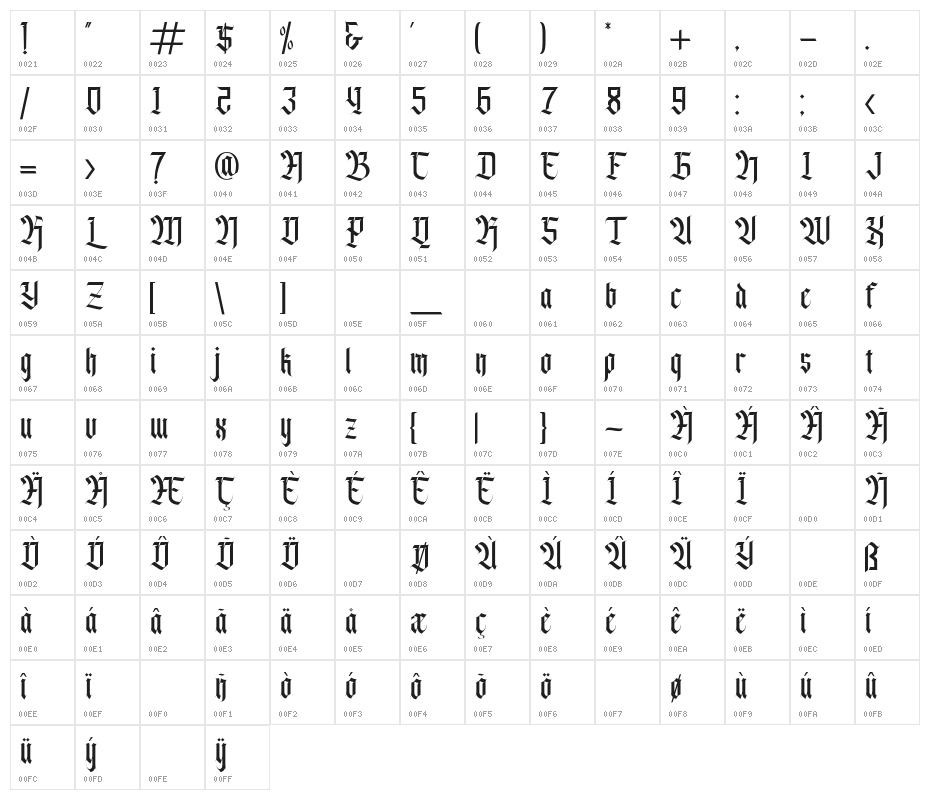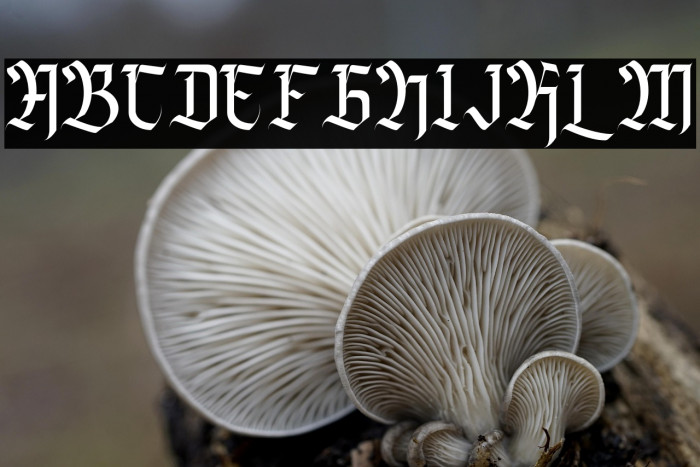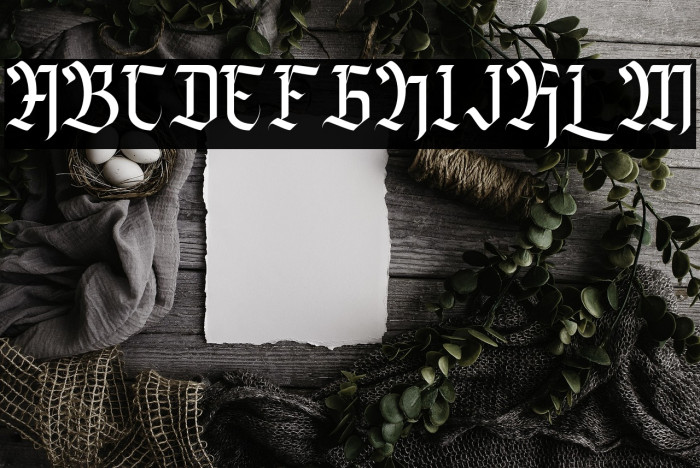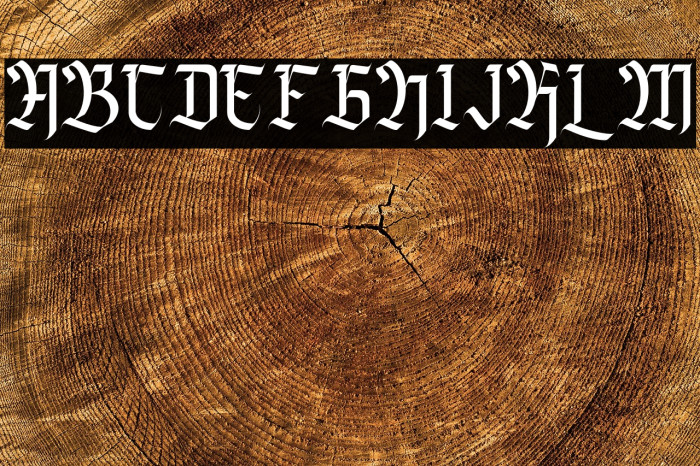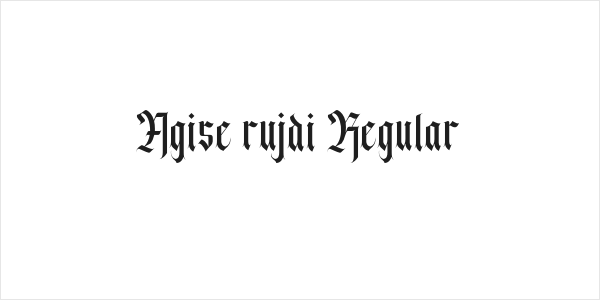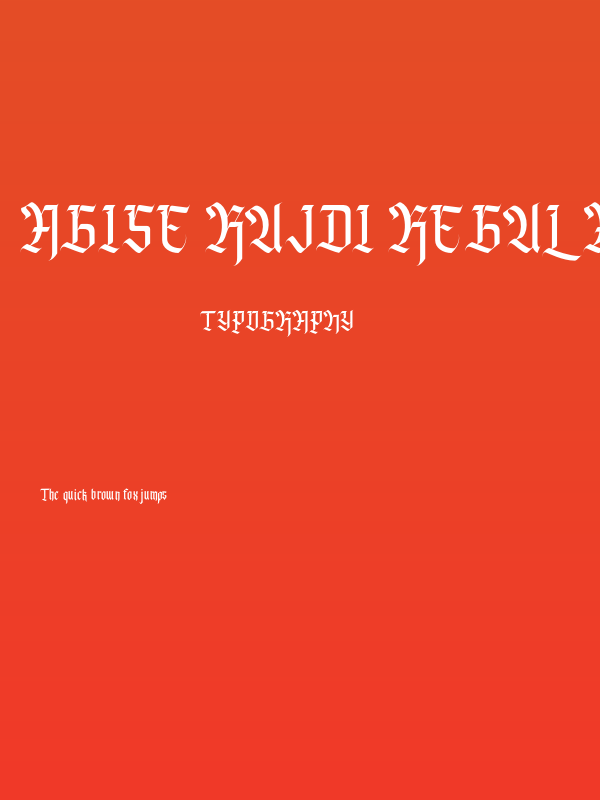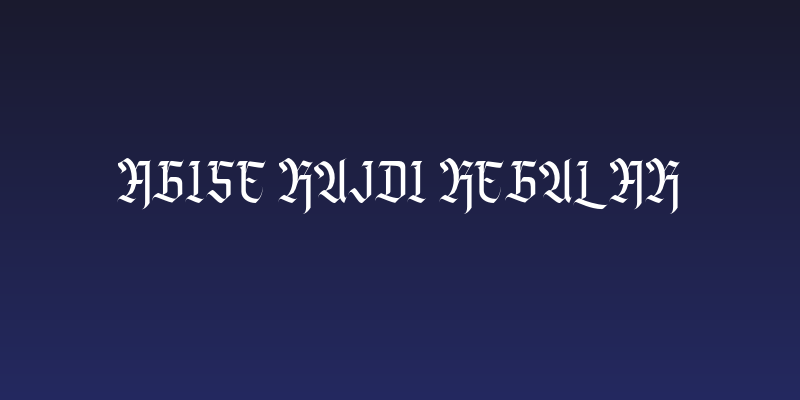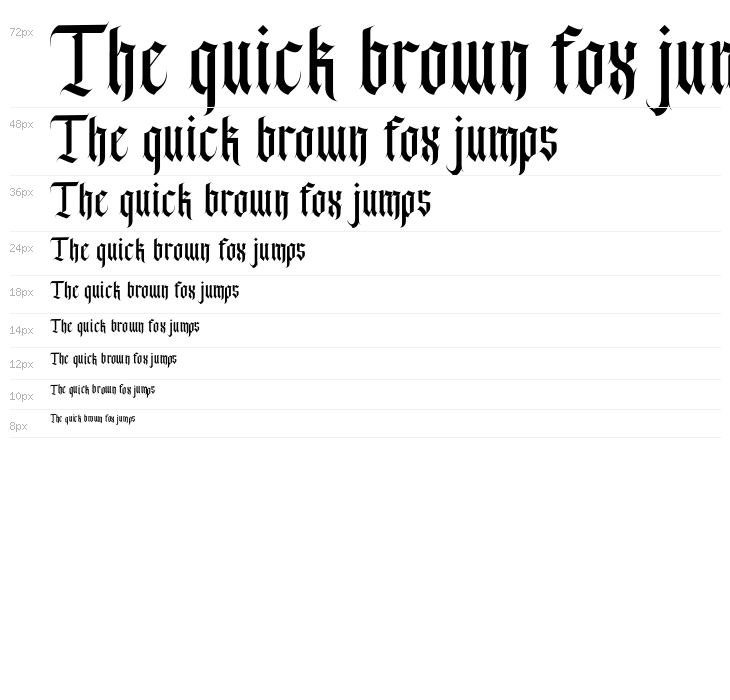
Agise rujdi Regular Font
Agise rujdi Regular Description
This font features a bold and dramatic style reminiscent of traditional Blackletter typefaces. The characters are sharply angular with pronounced serifs and intricate details, giving it a historic and authoritative appearance. The uppercase letters are particularly ornate, with strong vertical lines and pointed edges, while the lowercase letters maintain a consistent style with slightly less embellishment. The numerals and special characters follow the same design principles, ensuring a cohesive look across all glyphs. This font's unique aesthetic makes it suitable for projects that require a touch of elegance and tradition.
| Use Case | Headlines, Logos, Decorative text |
| Proposed Projects | Ideal for use in certificates, invitations, historical documents, or branding that requires a classic and authoritative look. |